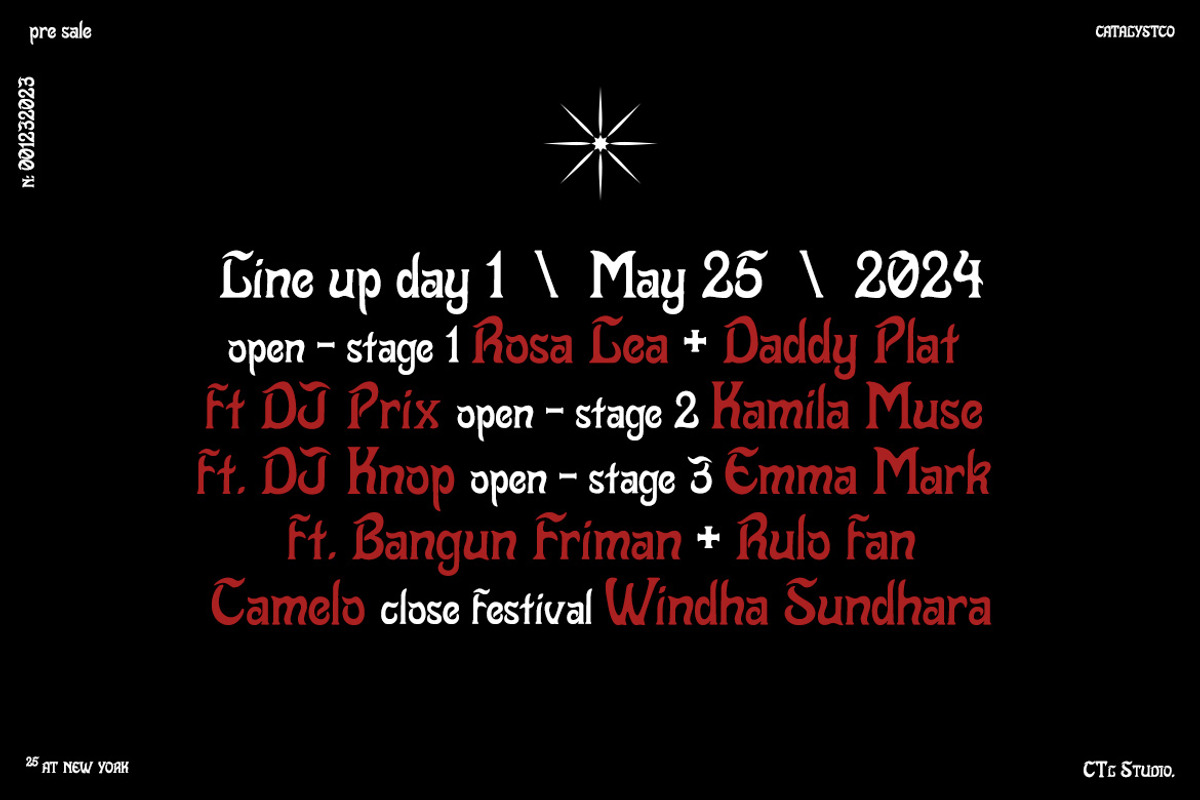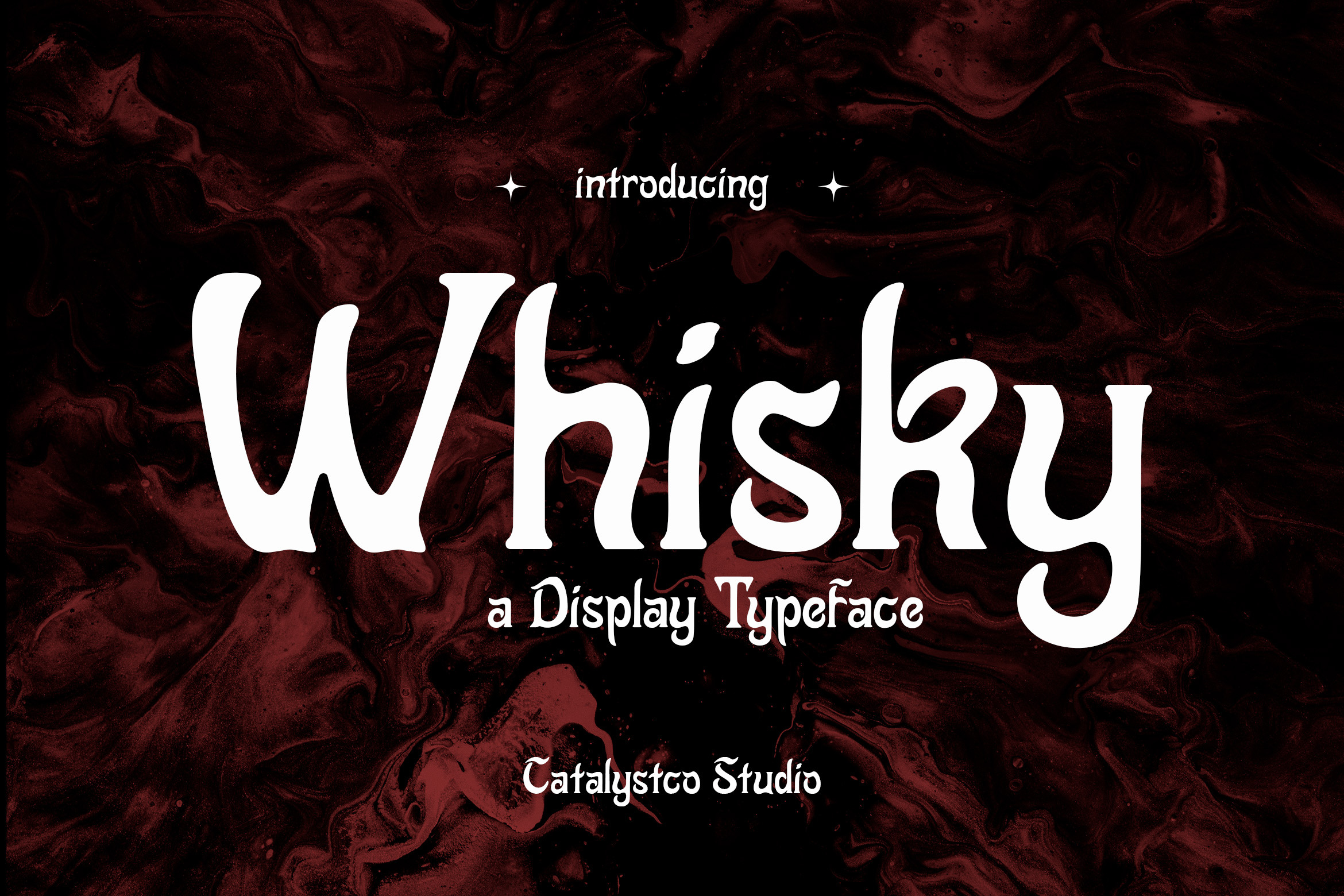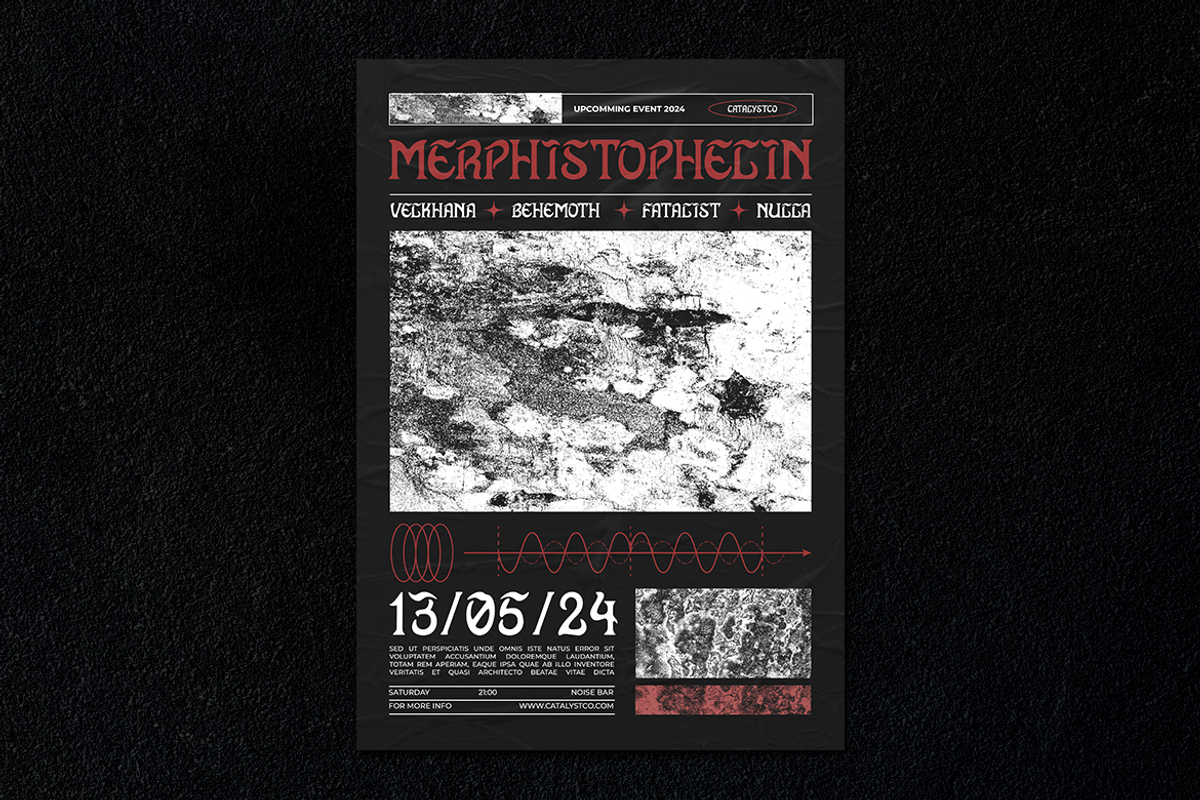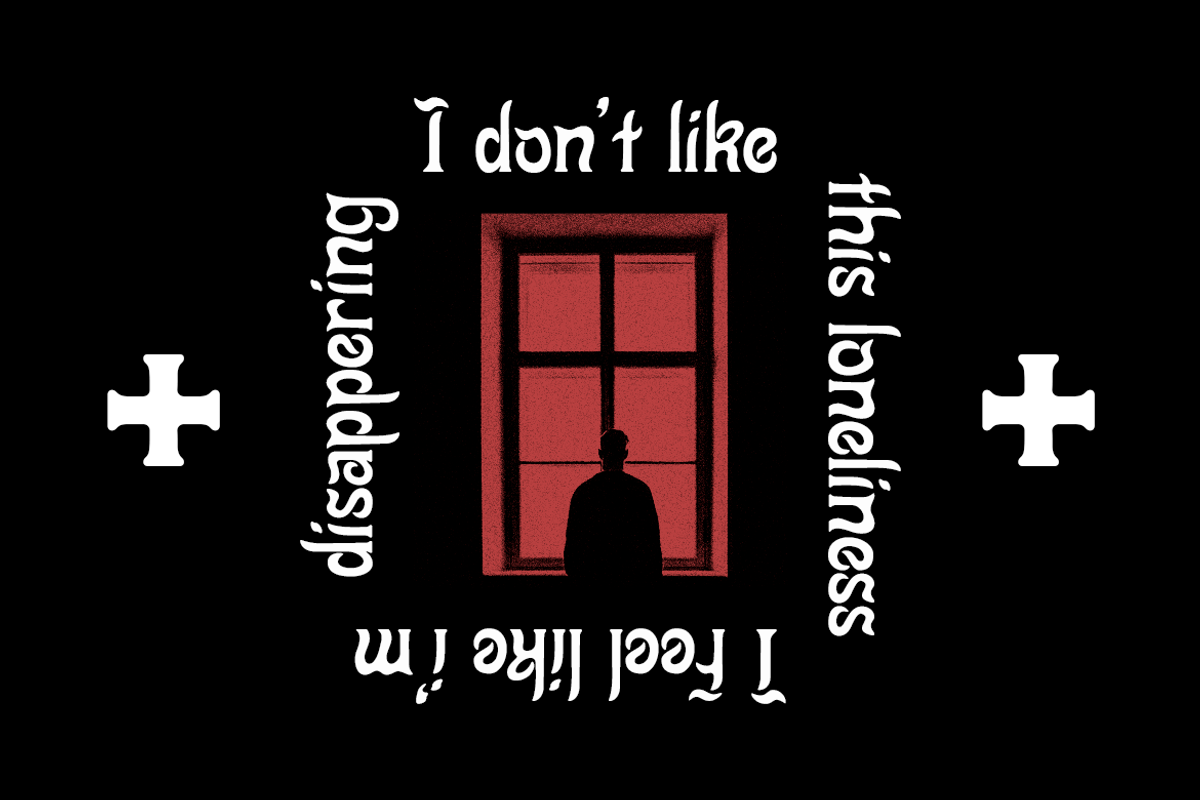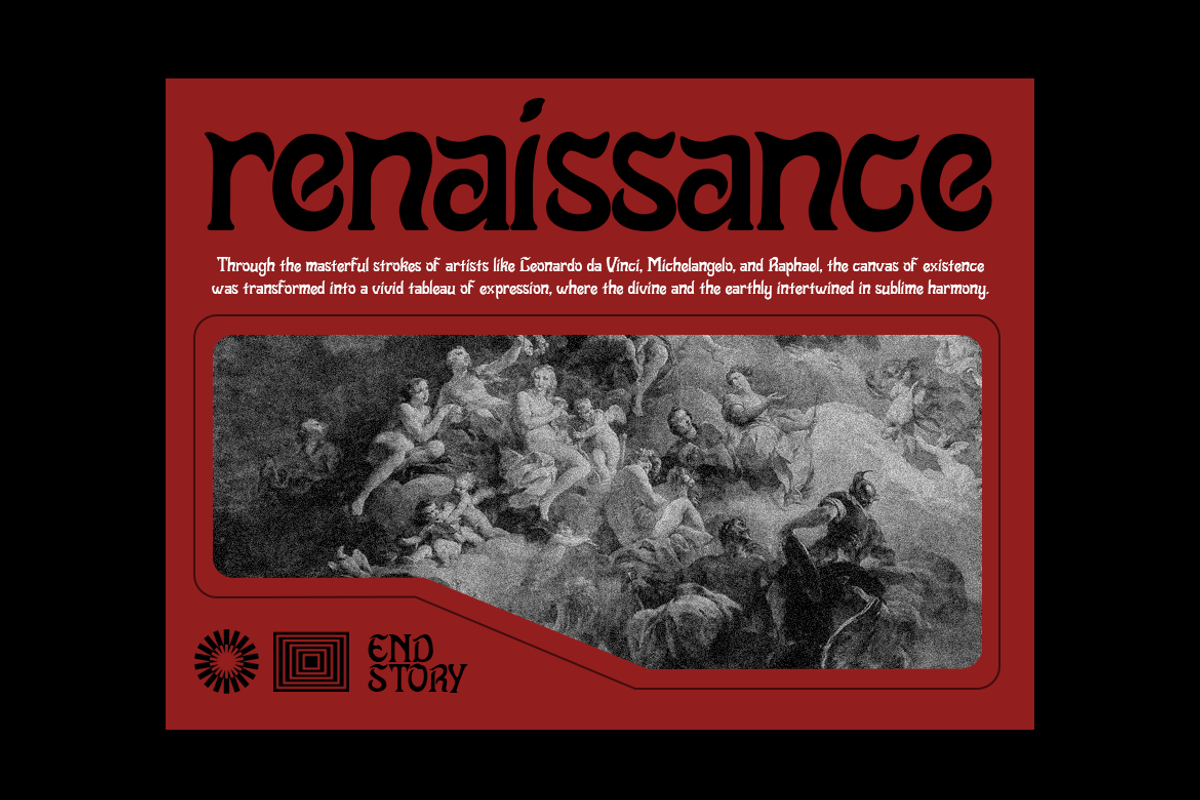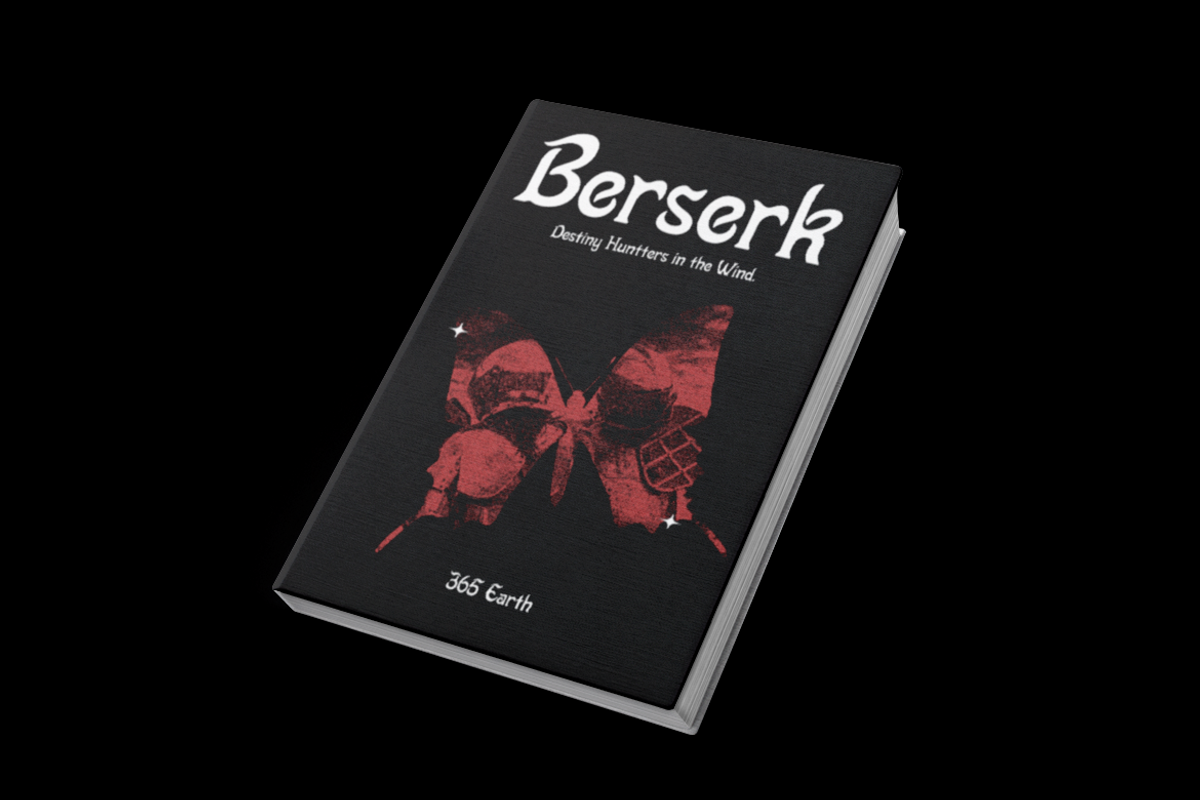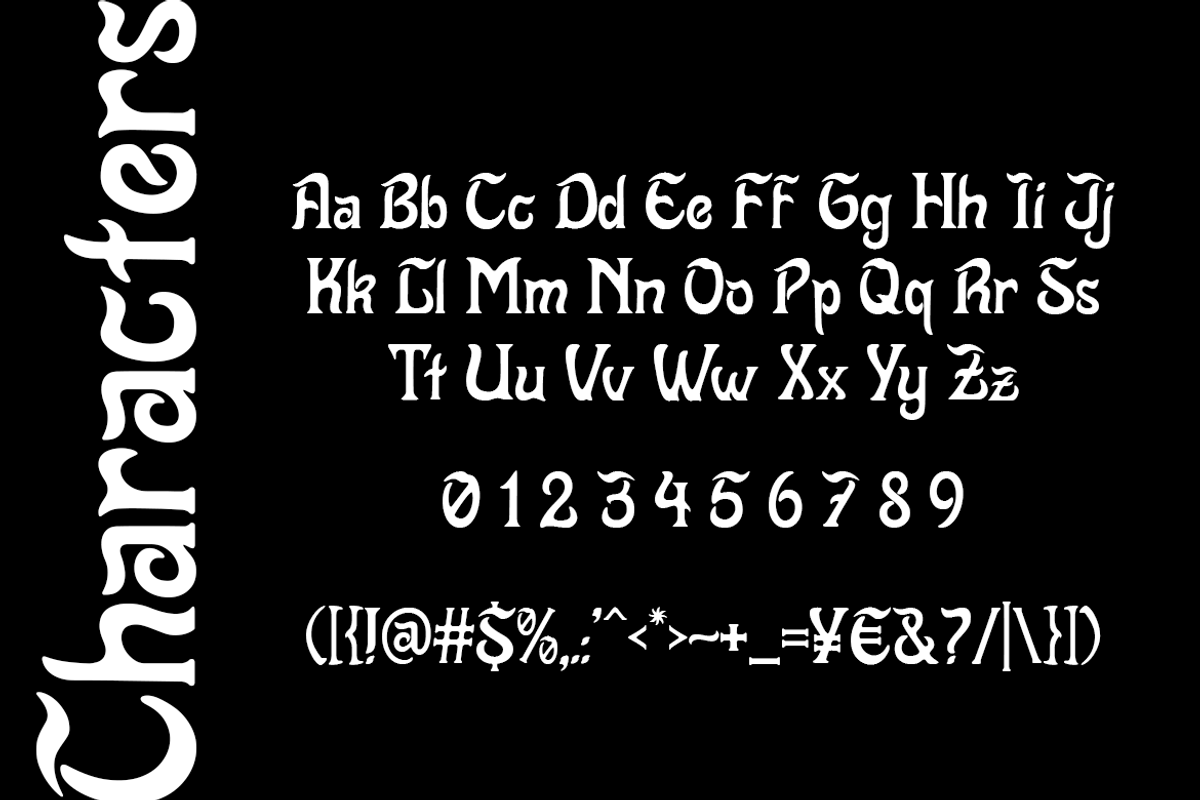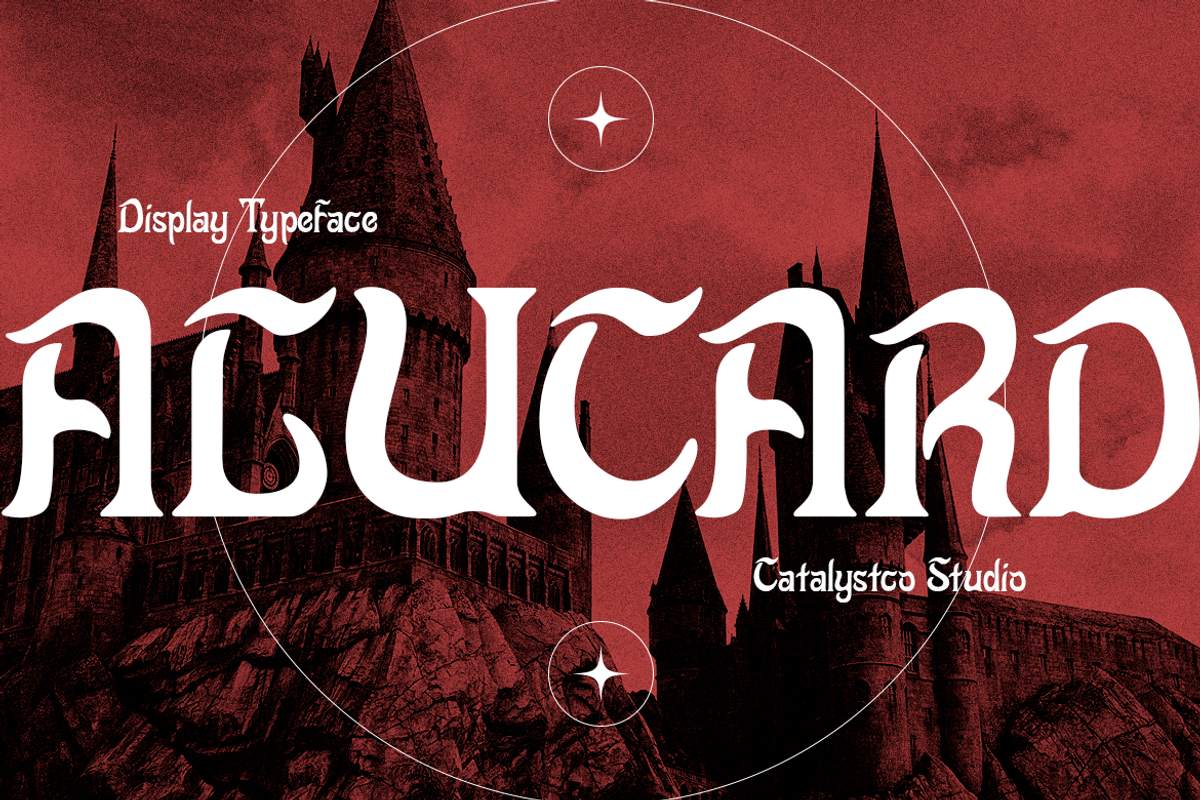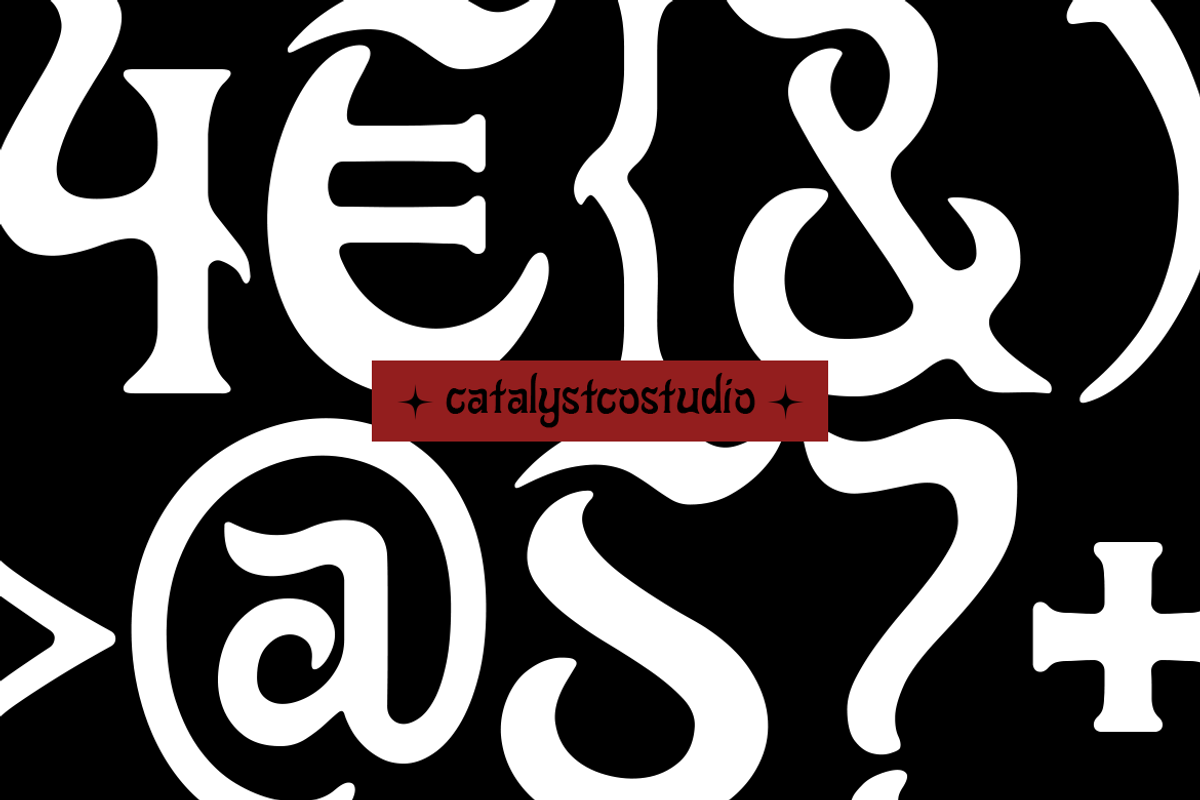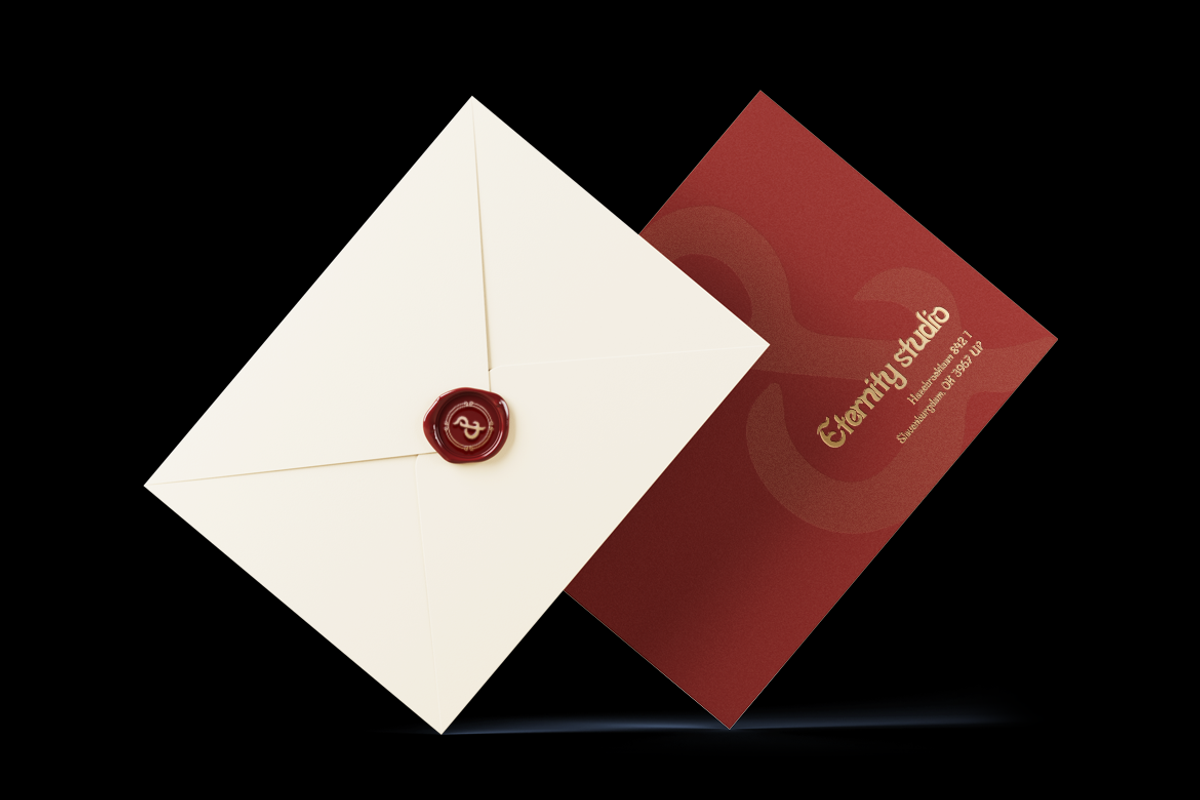
Whisky Display Typeface Font
Whisky Display Typeface Font typeface excellent used for the manufacture quote text, logotype, header magazine, and many more.
Main Features
- Numeral & Punctuations